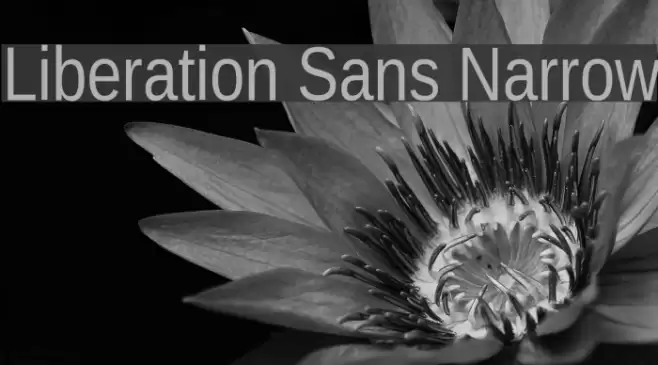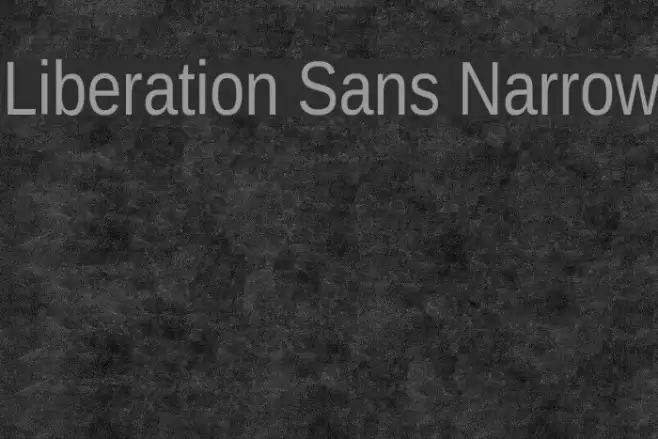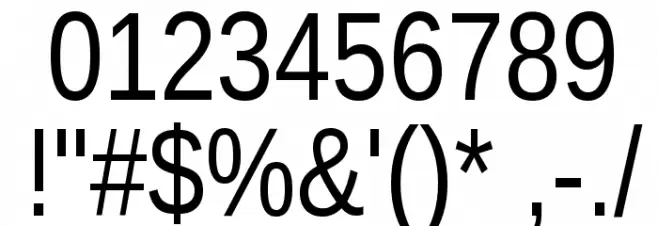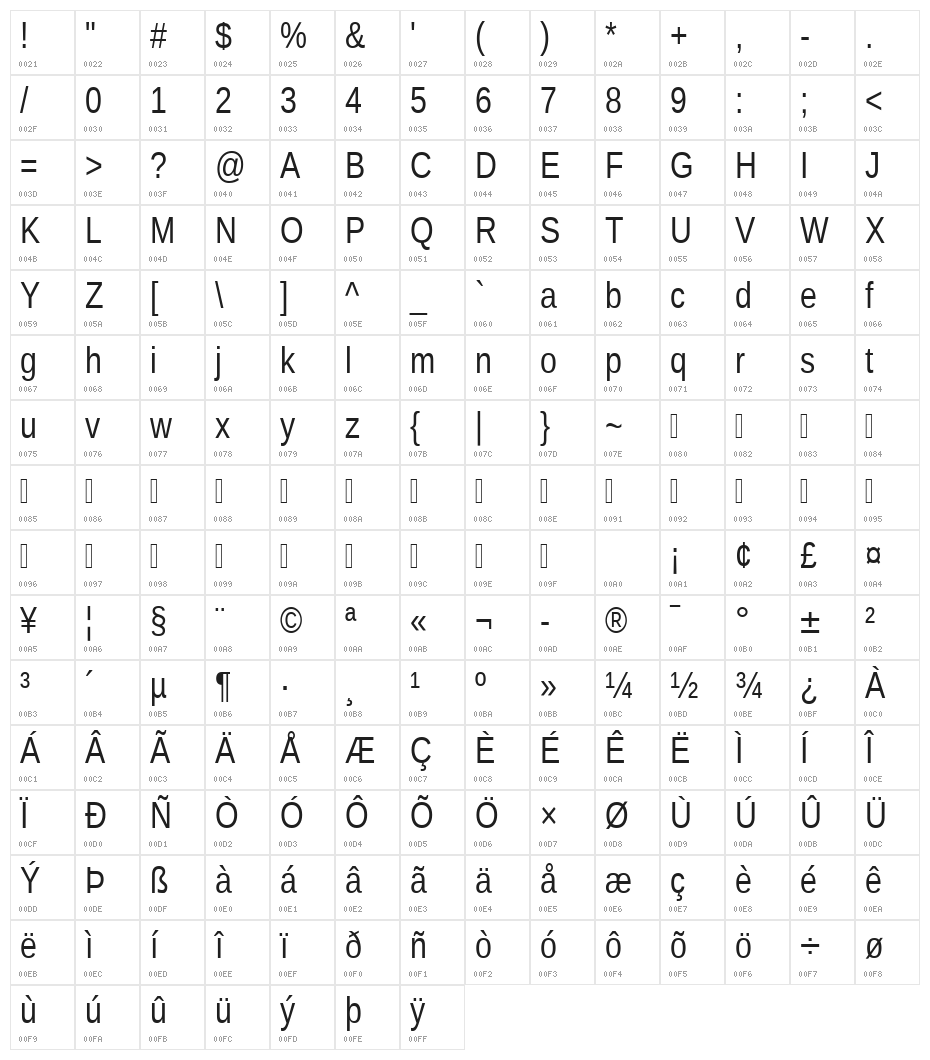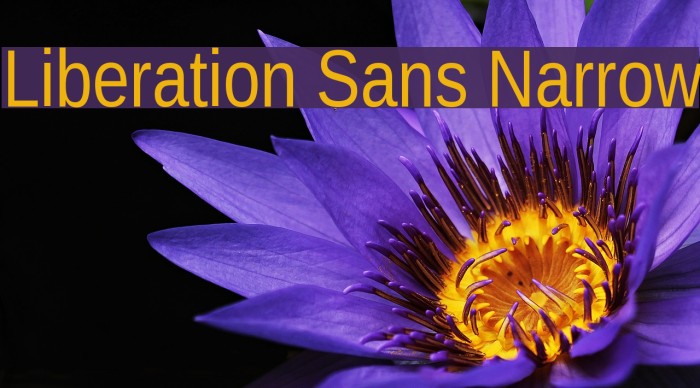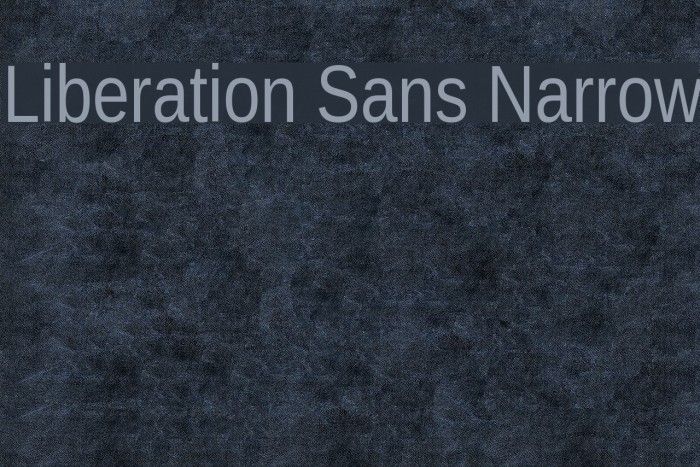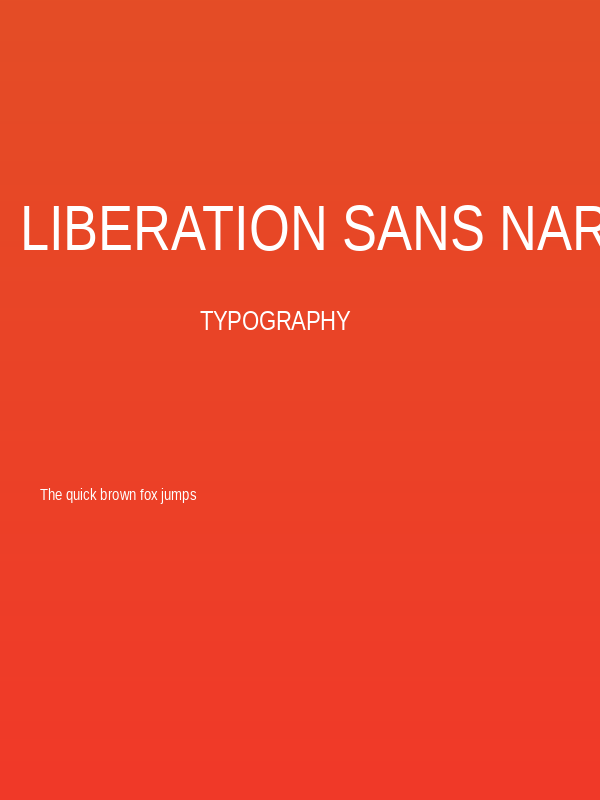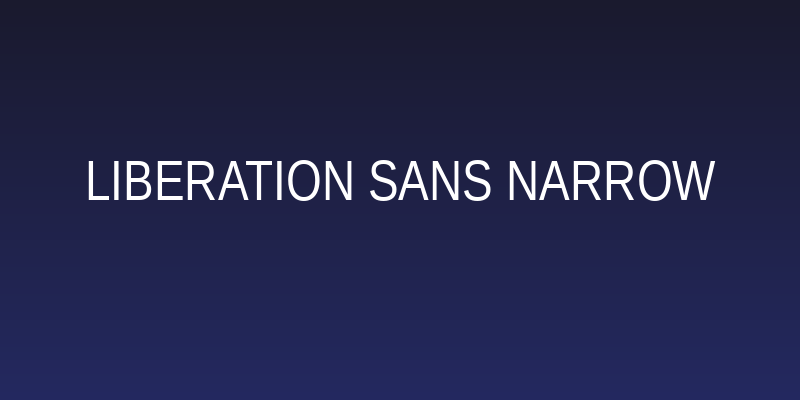
Liberation Sans Narrow Font
Liberation Sans Narrow Description
This font features a clean and modern sans-serif design with a narrow width, making it ideal for space-saving applications. The characters are well-defined with a consistent stroke width, providing excellent readability. The uppercase and lowercase letters maintain a uniform style, while the numerals and special characters are clearly distinguishable. This font's simplicity and clarity make it versatile for various design needs, from digital to print media.
A modern, narrow sans-serif font with excellent readability and uniform style from Uncategorized fonts.